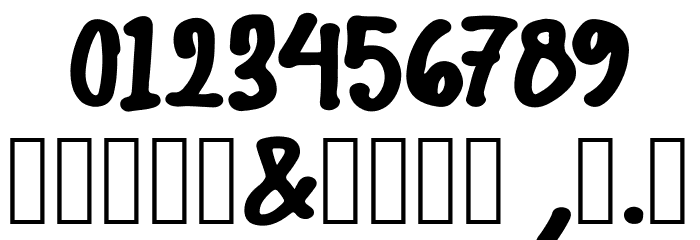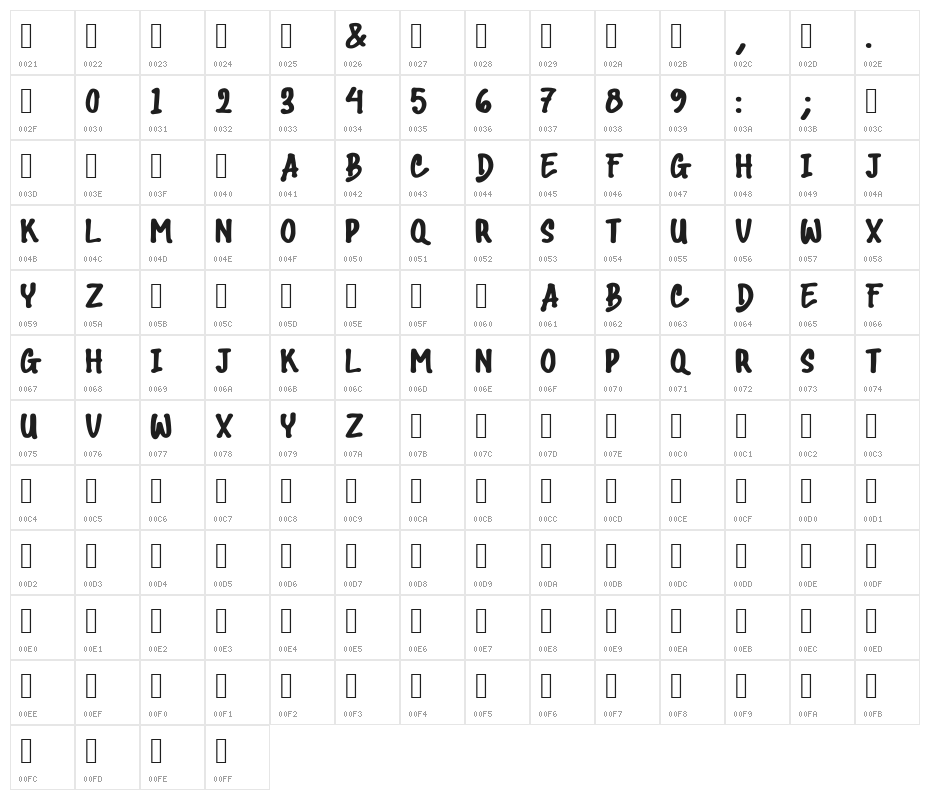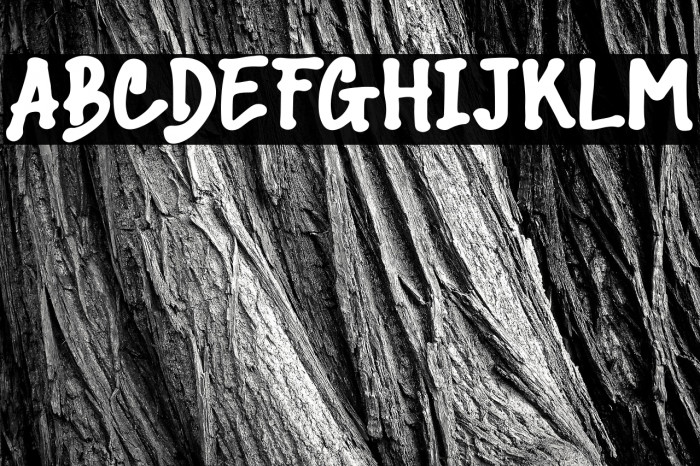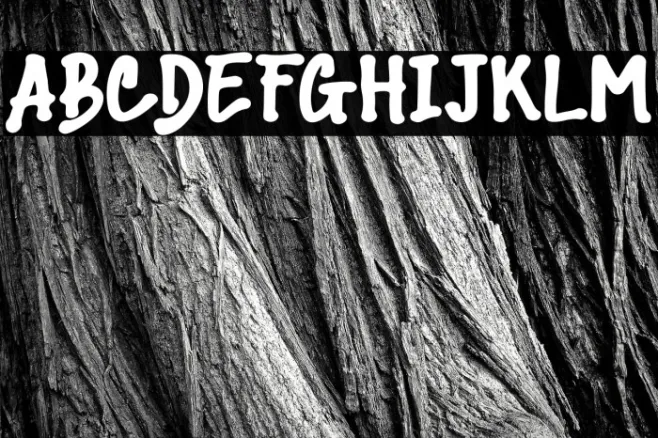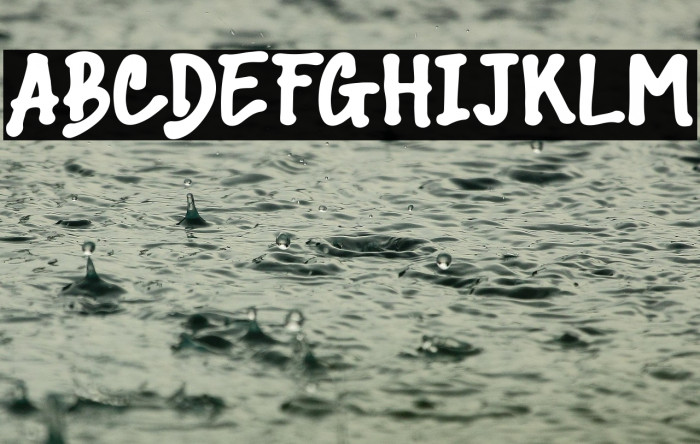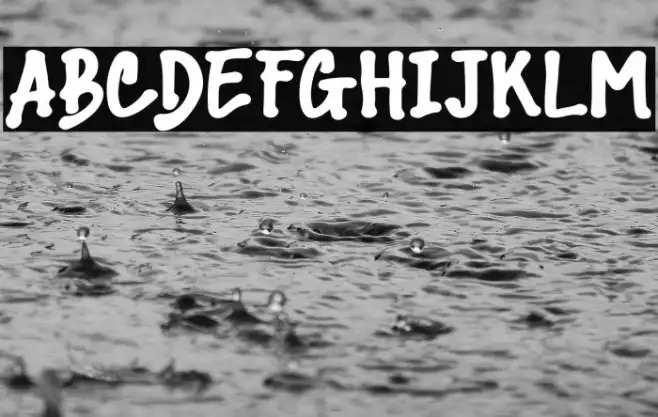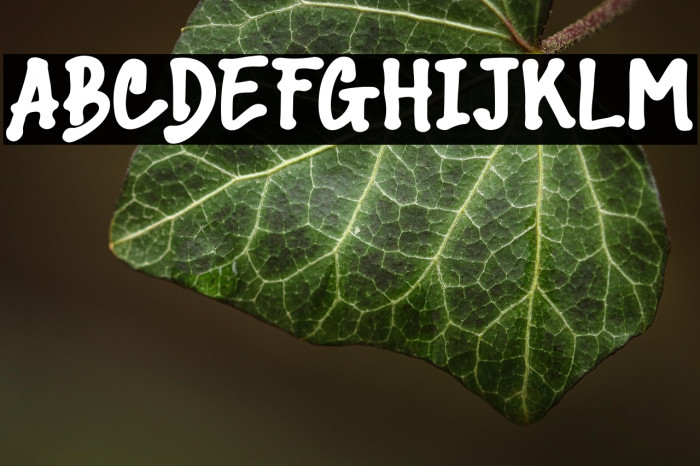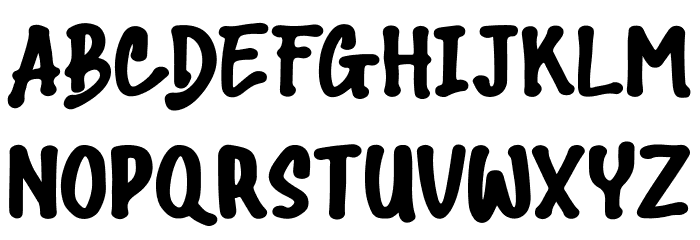
Batara Font
Batara Description
This font features a bold and playful style with rounded edges and a hand-drawn appearance. The uppercase and lowercase letters maintain a consistent thickness, giving it a cohesive look. The numbers and special characters follow the same playful aesthetic, making it suitable for creative and informal projects. The overall design is friendly and approachable, with a slight vintage touch that adds character.
| Overall Style | Playful, Vintage |